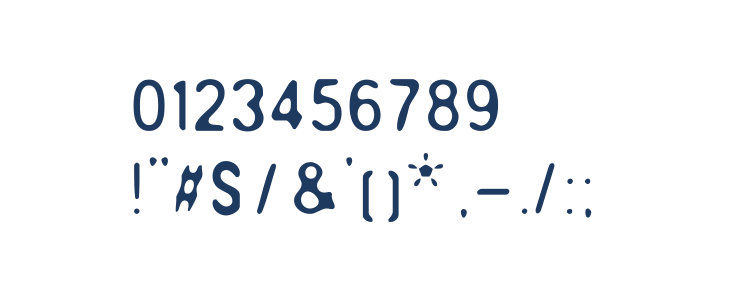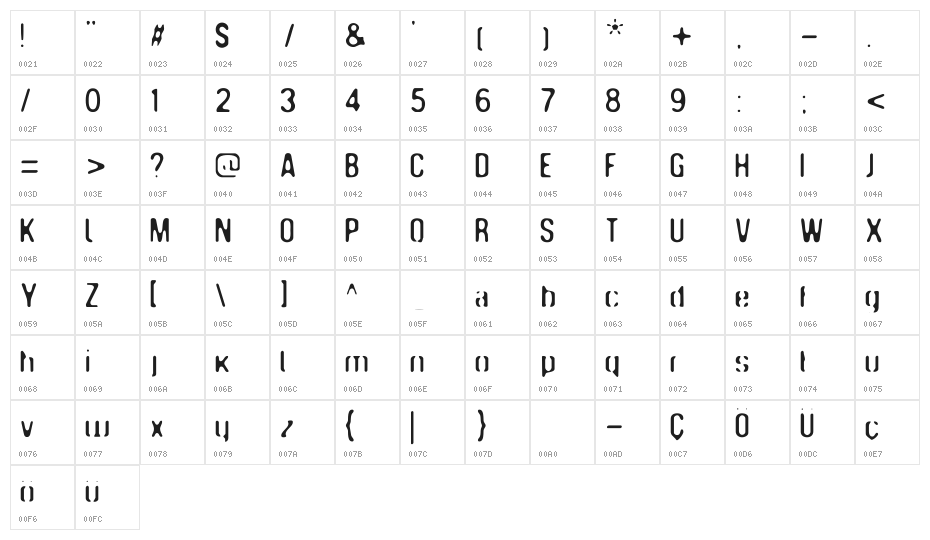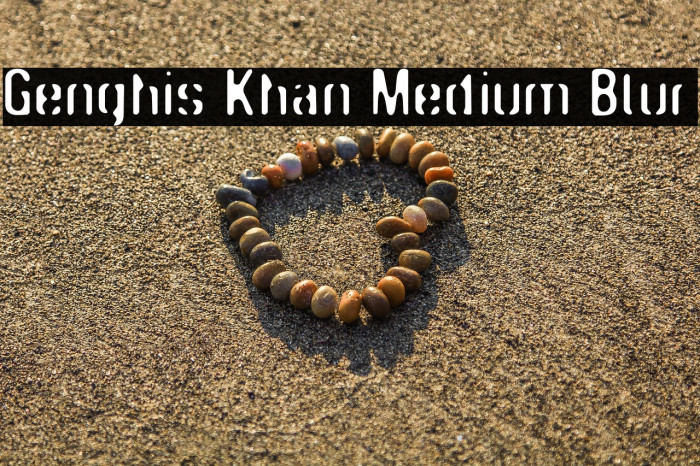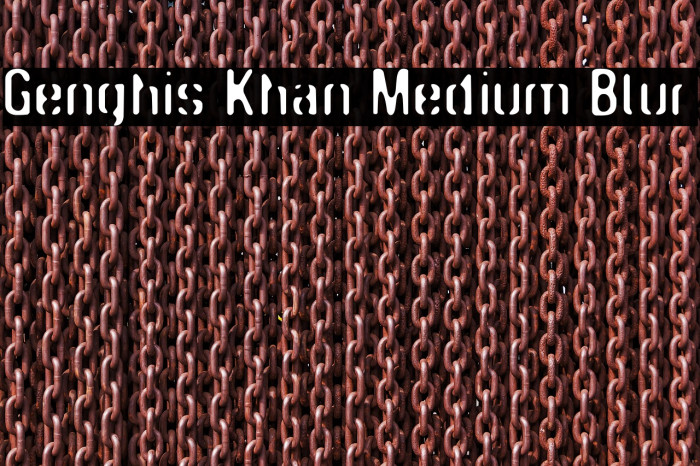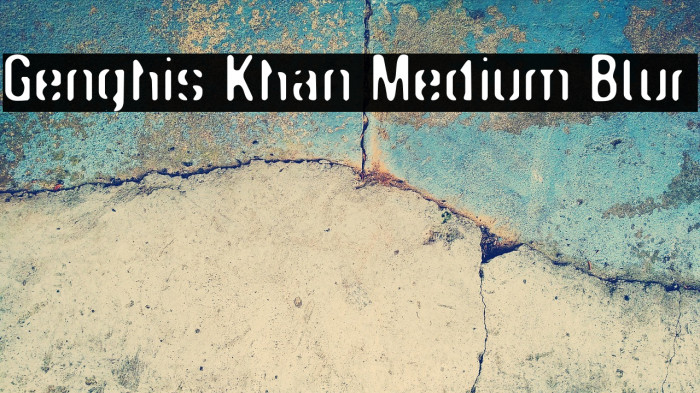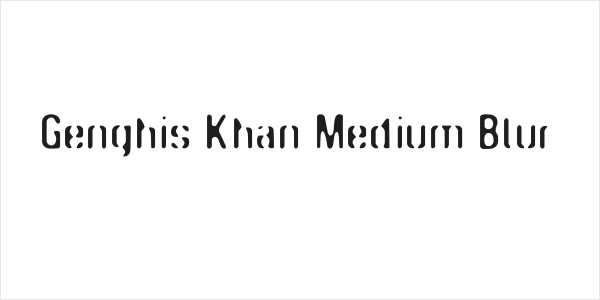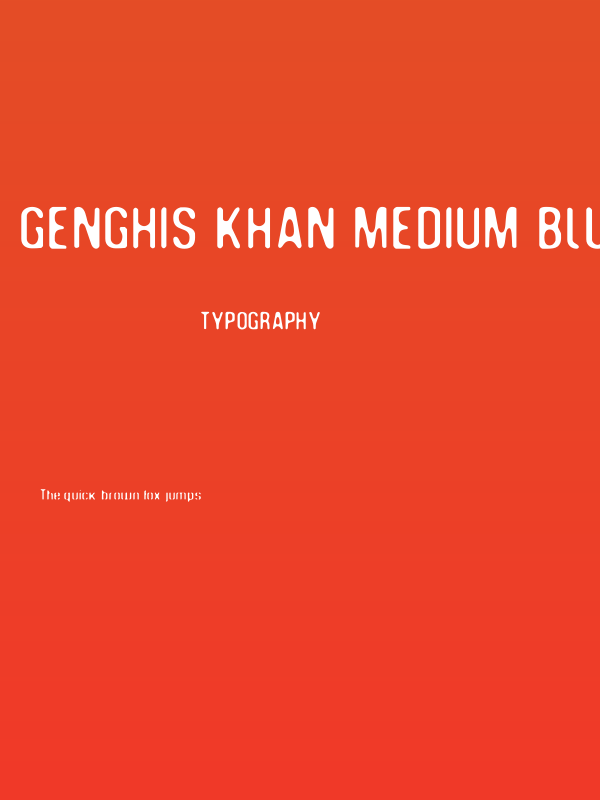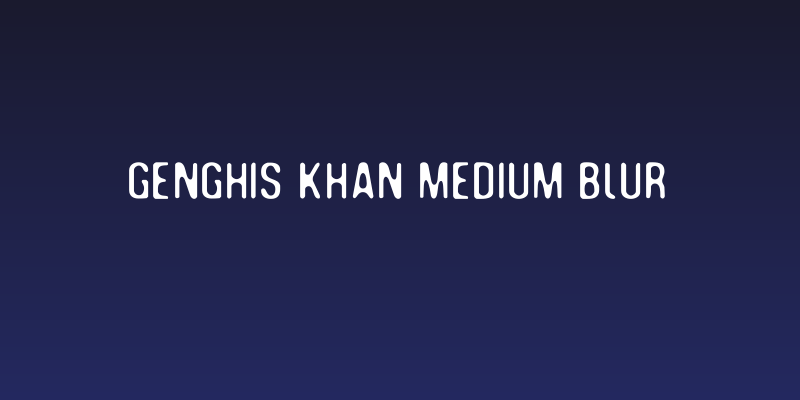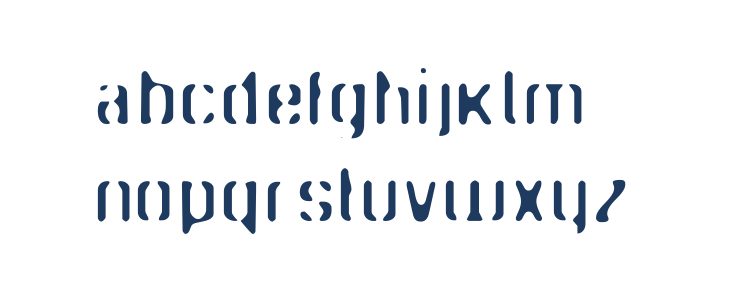
Genghis Khan Medium Blur Font
Genghis Khan Medium Blur Description
This font features a bold and distinctive style with a slightly blurred effect, giving it a unique and modern appearance. The characters are rounded with a consistent thickness, creating a smooth and cohesive look. The uppercase and lowercase letters maintain a uniform height, while the numbers and special characters are designed to match the overall aesthetic. The font's playful yet structured design makes it suitable for creative projects that require a touch of originality.